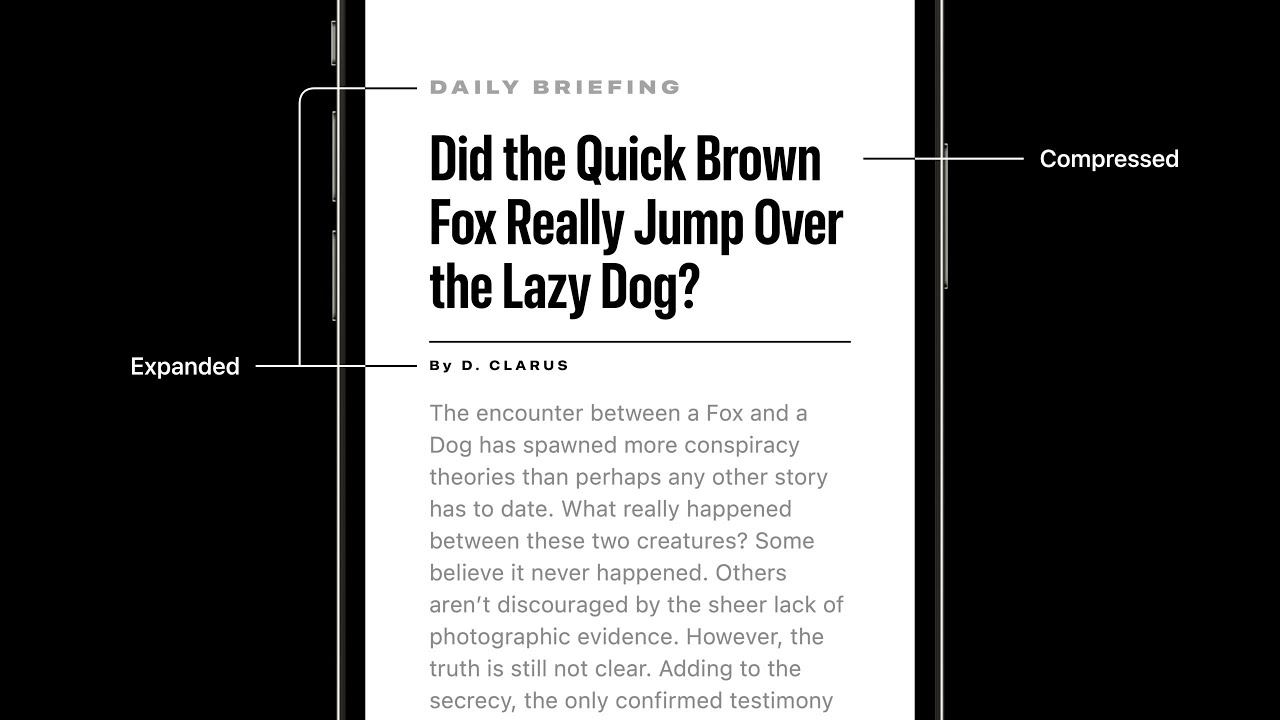
Apple Font The Essential Typeface Learn how to use the typefaces designed by apple for interfaces on ios, ipados, macos, tvos, and watchos. find out about san francisco, sf pro, sf compact, sf mono, new york, sf script extensions, and more. A collection of apple fonts for personal and commercial use. the best fonts from apple (iphone, ipad) with writing examples.
Apple Font The Essential Typeface Learn about the history and evolution of apple's typefaces in its marketing, operating systems, and industrial design. from motter tektura to san francisco, discover the fonts that shaped apple's brand identity. A comprehensive list of fonts made by or for apple inc., including serif, sans serif, monospaced, script, and dingbat styles. learn about the history, design, and usage of each typeface, from apple garamond to san francisco. Learn about the preinstalled and downloadable fonts available for ios, macos, tvos, and watchos platforms. filter by keywords, font name, version, and platform type to find the fonts suitable for your app's user interface. Apple inc came out with the new line of iphones during macworld expo 9, the models that were presented were single piece designs. these are iphones which uses the ios platform to give us new features each time a new model is created.
Apple Font Learn about the preinstalled and downloadable fonts available for ios, macos, tvos, and watchos platforms. filter by keywords, font name, version, and platform type to find the fonts suitable for your app's user interface. Apple inc came out with the new line of iphones during macworld expo 9, the models that were presented were single piece designs. these are iphones which uses the ios platform to give us new features each time a new model is created. It’s intended for developers, designers, and typography enthusiasts who want quick access to these fonts for personal projects, prototyping, or testing on macos and other platforms. Helvetica neue: apple made a major typographic shift in 2013 with ios 7, adopting helvetica neue as the system font. this sans serif typeface, known for its neutrality and clarity, was employed across both ios and later on os x yosemite, showcasing a unification in design across apple's platforms. Apple garamond à in basic > serif 3,067,940 downloads (1,037 yesterday) 19 comments 6 font files download. Learn about the evolution of apple's fonts, from motter tektura to san francisco, and how they reflect the brand's identity and user experience. explore the features, history, and examples of each font in this comprehensive article.